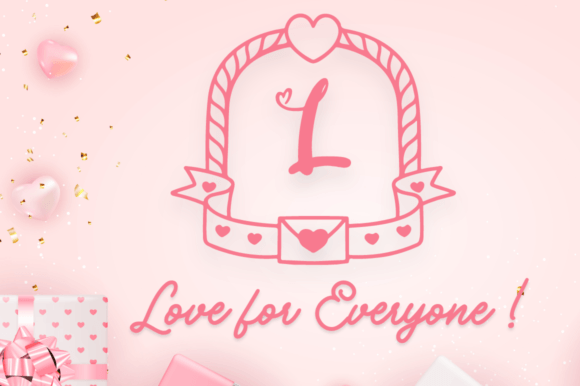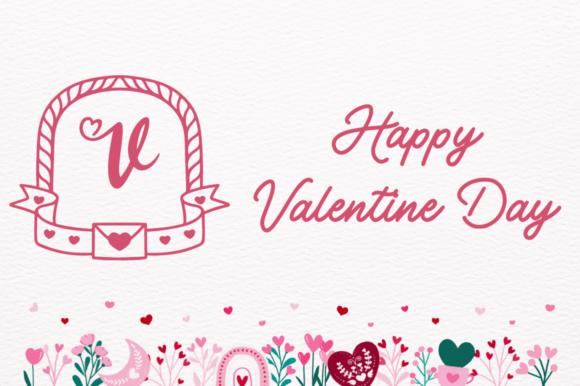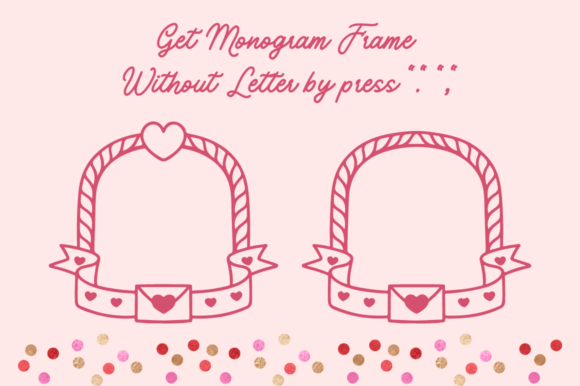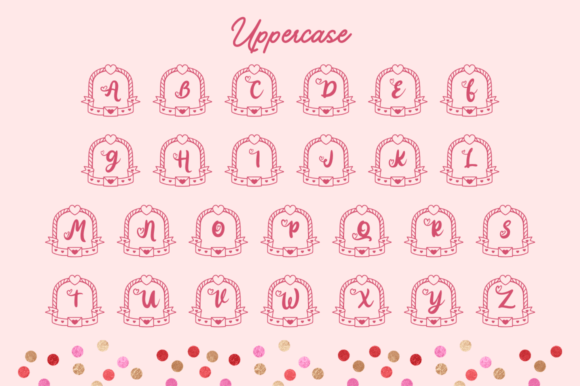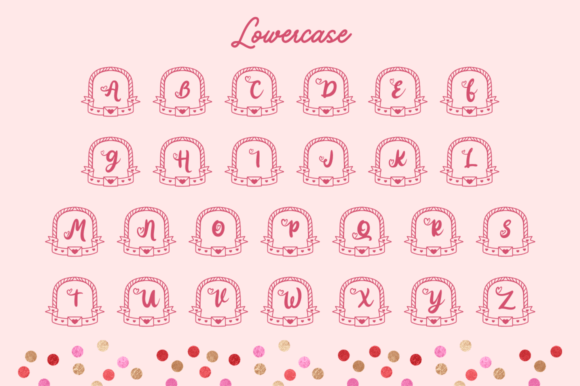
Love at First Sight: Introducing the Asmara Valentine Monogram Font
Who hasn’t felt that rush of excitement when stumbling upon the perfect font for their design project? It’s like finding a missing puzzle piece that brings everything together. For designers and creatives alike, the search for the perfect font is an ongoing journey. And, we’re thrilled to share with you the latest addition to our font family: the adorable Asmara Valentine Monogram Font.
This sweet font is designed to add a touch of whimsy and romance to your designs. With its cute characters and playful style, it’s perfect for creating stunning monograms, logos, and other decorative elements. Whether you’re a professional designer or a hobbyist, the Asmara Valentine Monogram Font is an invaluable addition to your toolkit. Its versatility and charm make it an essential resource for anyone looking to add a personal touch to their designs.
- Unique Characteristics: This monogram font features a unique blend of elegant and modern design elements, perfect for creating eye-catching and personalized designs.
- Script and Ligatures: The font includes a range of script and ligature variations, allowing for a high degree of customization and flexibility in design applications.
Asmara Valentine Monogram Font Review
As a designer, I’ve had the chance to play around with the Asmara Valentine Monogram Font, and I must say, it’s a lovely addition to any design project. Here are some things that work well: ✨
- Unique and elegant design – The font has a beautiful, hand-drawn feel to it, making it perfect for Valentine’s Day-themed projects or anything that needs a touch of romance.
- High-quality vector graphics – The font is well-made and scalable, making it suitable for various uses, from print to digital media.
- Wide character set – The font includes a wide range of characters, including uppercase and lowercase letters, numbers, and special characters, making it easy to work with.
However, there are some limitations to keep in mind: ⚠️
- Limited language support – The font only includes characters for a few languages, which might be a problem for designers working on multilingual projects.
- Not ideal for body text – Due to its unique design, the font might be difficult to read in large blocks of text, making it better suited for headlines and titles.
Overall, I think the Asmara Valentine Monogram Font is a great addition to any designer’s toolkit, as long as you’re aware of its limitations. It’s perfect for adding a touch of elegance and romance to your designs, but might not be the best choice for body text or multilingual projects.
Getting the Most Out of the Font
To get the most out of the Asmara Valentine Monogram Font, use it in combination with other decorative elements, such as flowers, hearts, or ribbons, to create a romantic and elegant design. Experiment with different font sizes, colors, and styles to add depth and visual interest to your design.
The Asmara Valentine Monogram Font is ideal for designing romantic invitations, wedding stationery, and valentine’s day cards. It can also be used for creating personalized gifts, such as photo albums and picture frames, or for adding a touch of elegance to your social media posts and graphics.